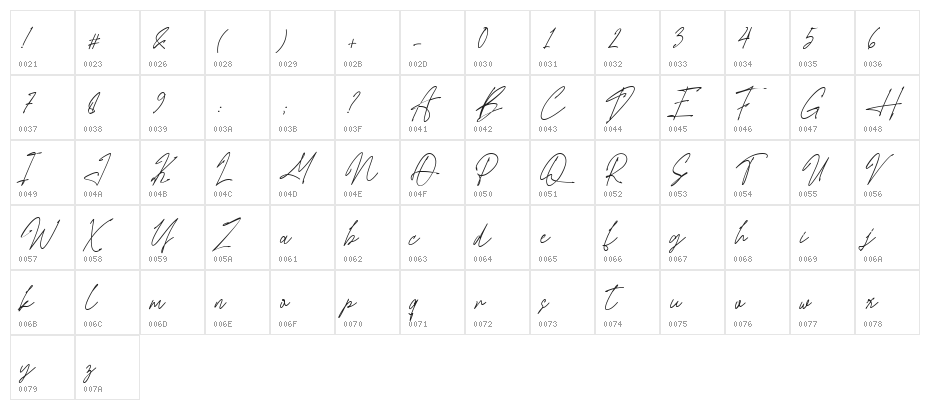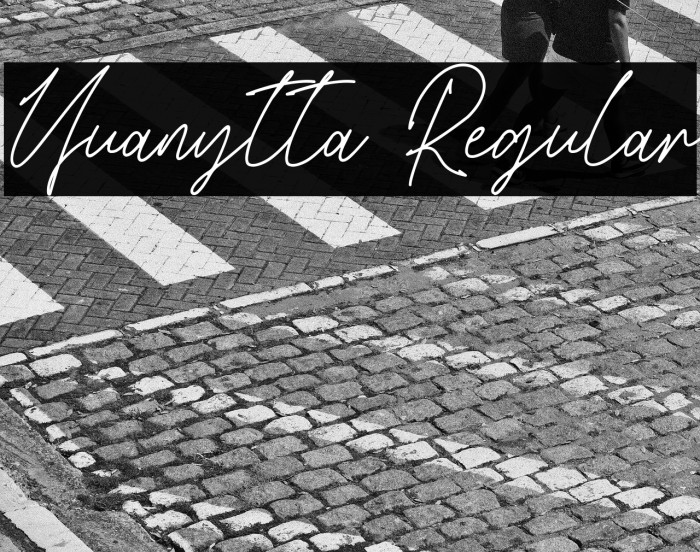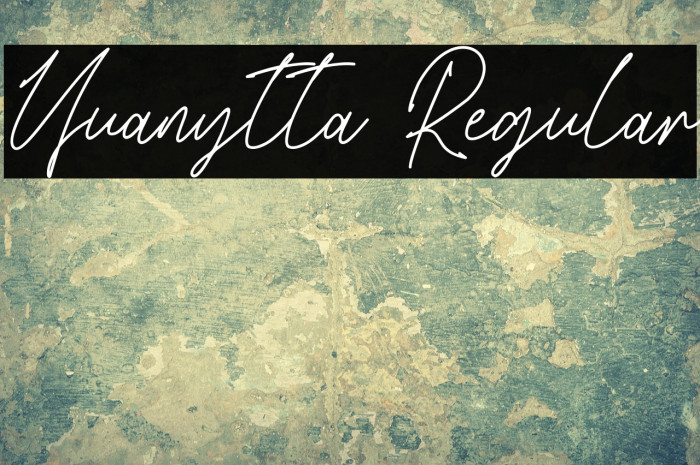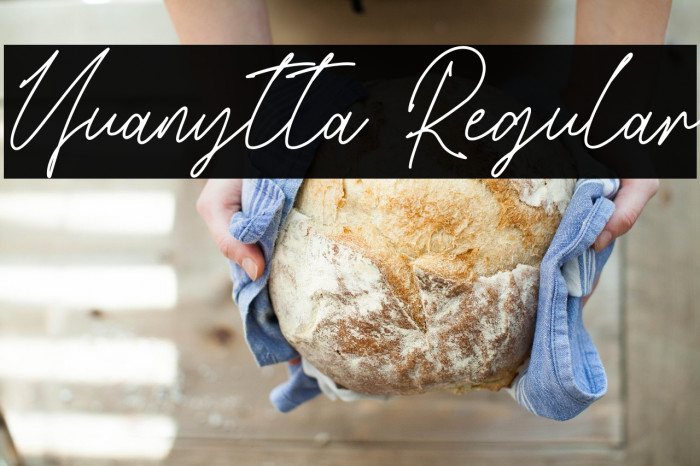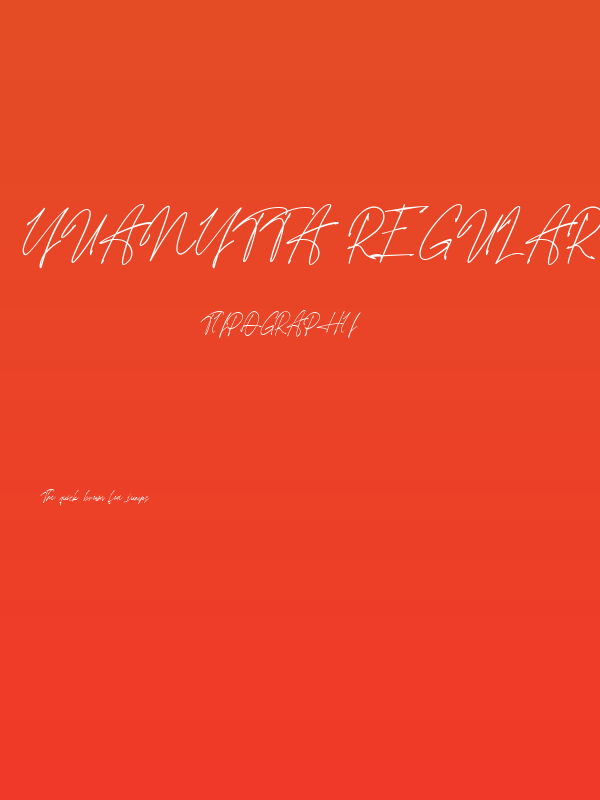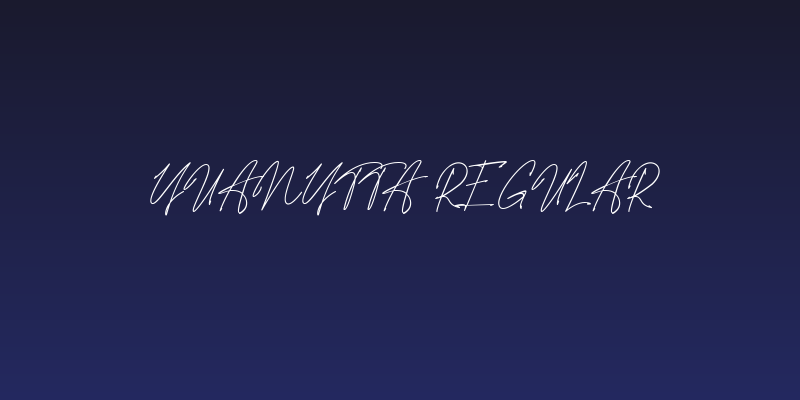
Yuanytta Regular Font
Yuanytta Regular Description
A flowing, cursive script font with a handwritten appearance, featuring connected letters and a natural, elegant style.
| Use Case | Logos, Invitations, Personal notes |
| Proposed Projects | Invitations, greeting cards, personal branding. |